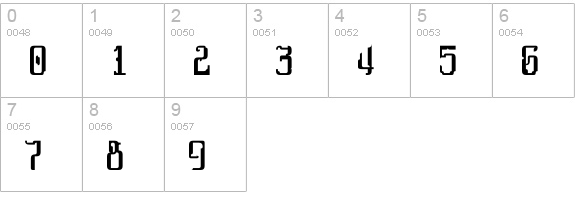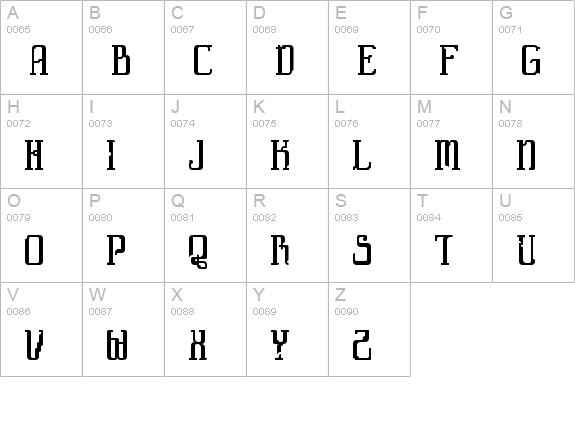
Daybreaker Font Details
Daybreaker font is a striking and versatile typeface that boasts a modern and elegant design. Its sleek lines and sharp edges give it a contemporary feel, making it perfect for a wide range of design projects. Whether you're working on a logo, website, poster, or any other creative endeavor, Daybreaker font is sure to make a bold statement. What sets Daybreaker font apart is its unique combination of sophistication and accessibility. Its clean and minimalistic aesthetic makes it easy to read and visually appealing. This makes it a great choice for both print and digital applications. One of the best things about Daybreaker font is that it is completely free to download. You can get your hands on this stunning typeface at FontsMarket.com and start using it in your projects right away. Don't miss out on this fantastic opportunity to add a touch of elegance and style to your designs with Daybreaker font.